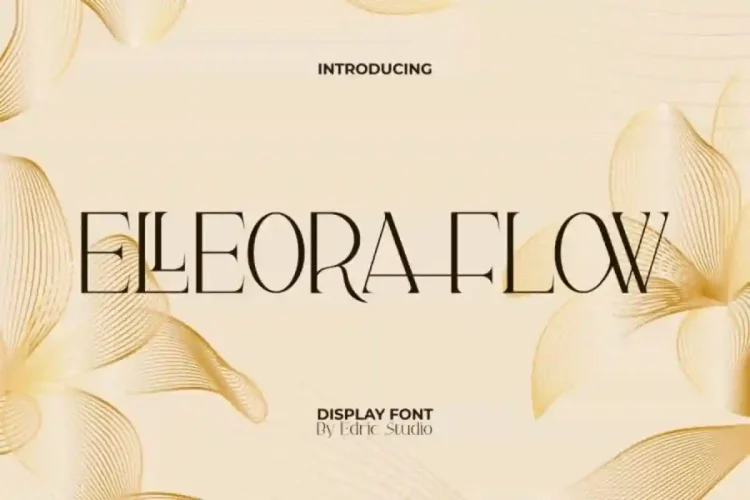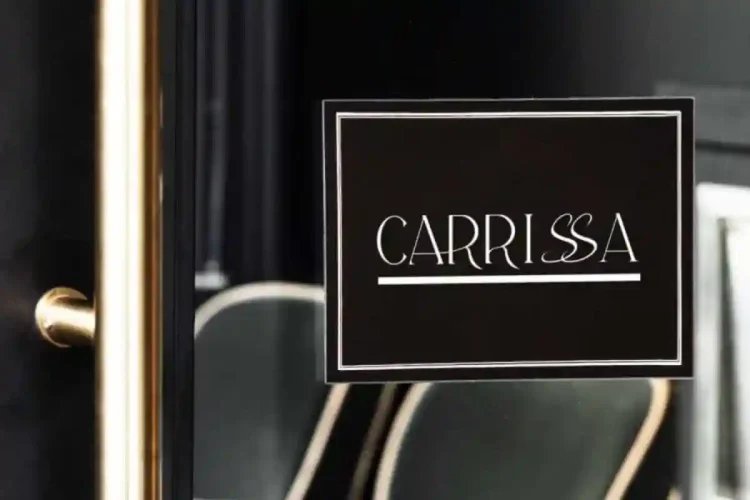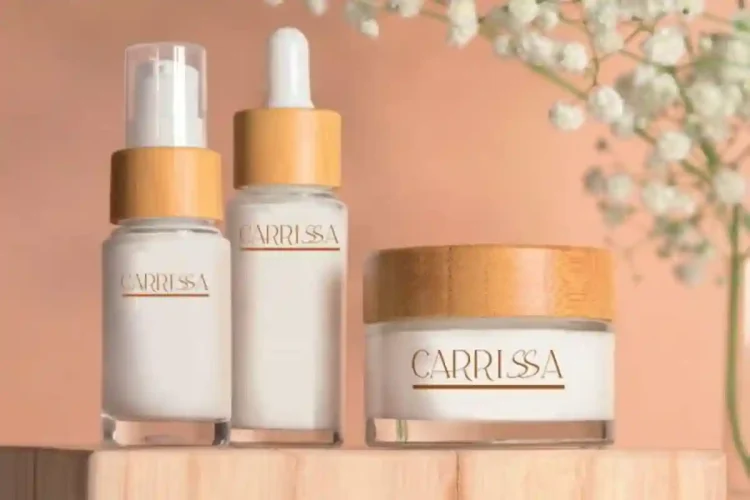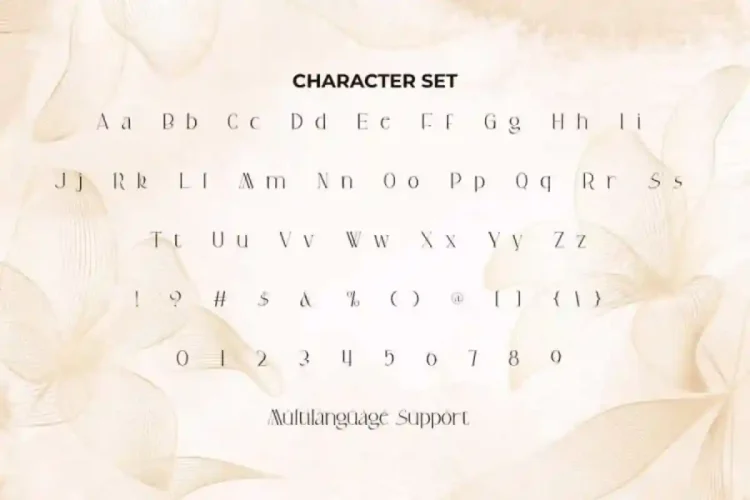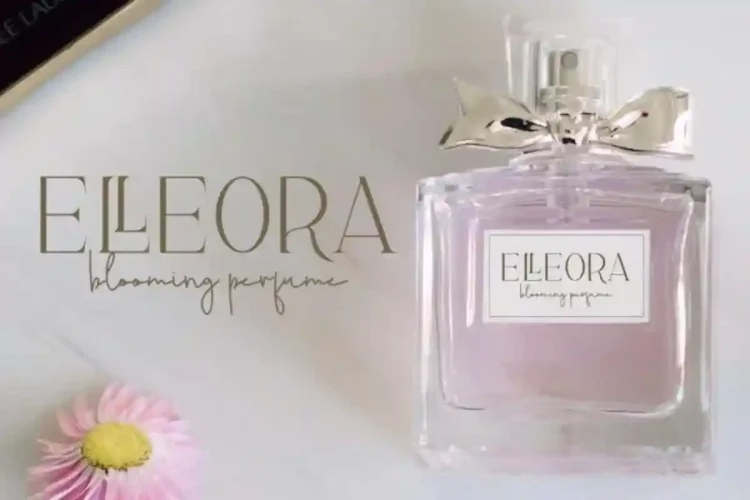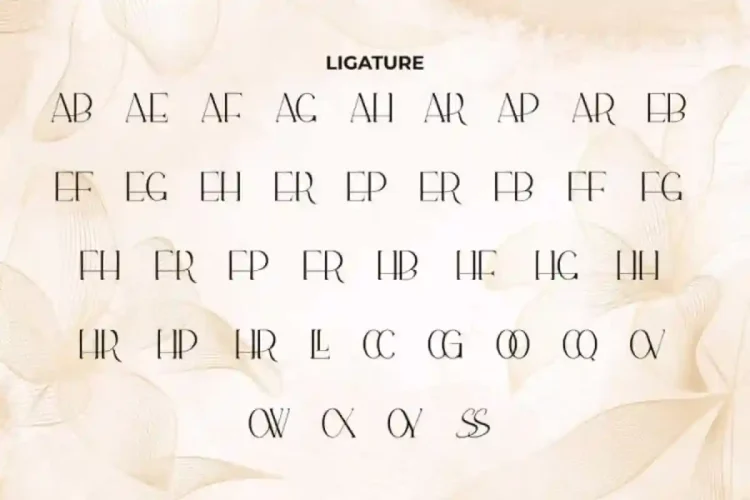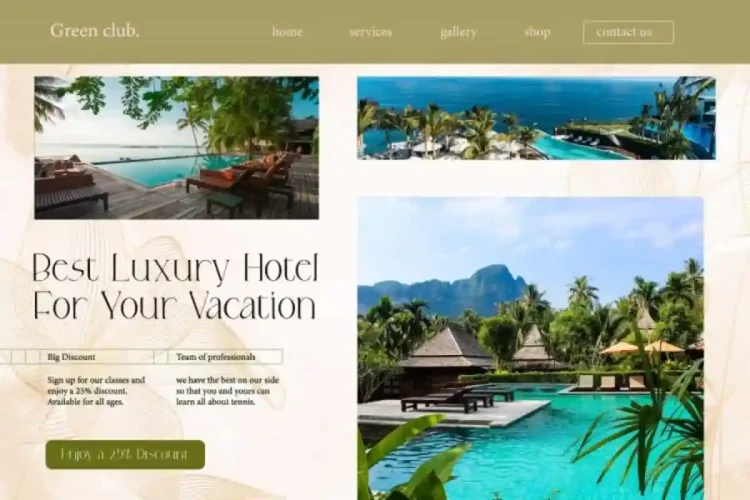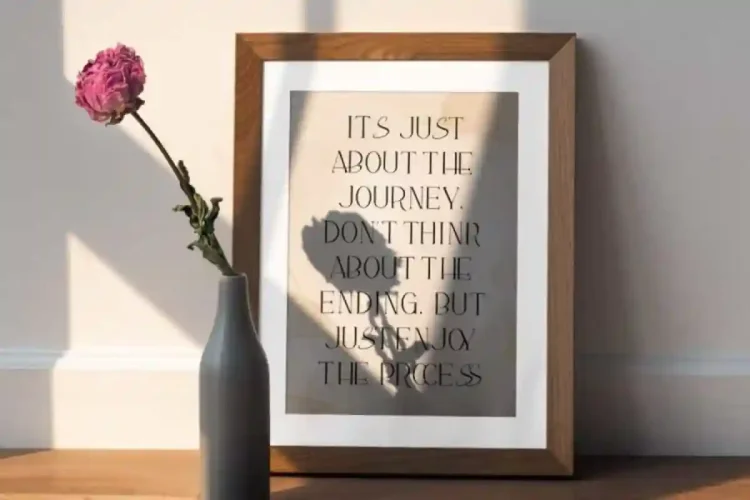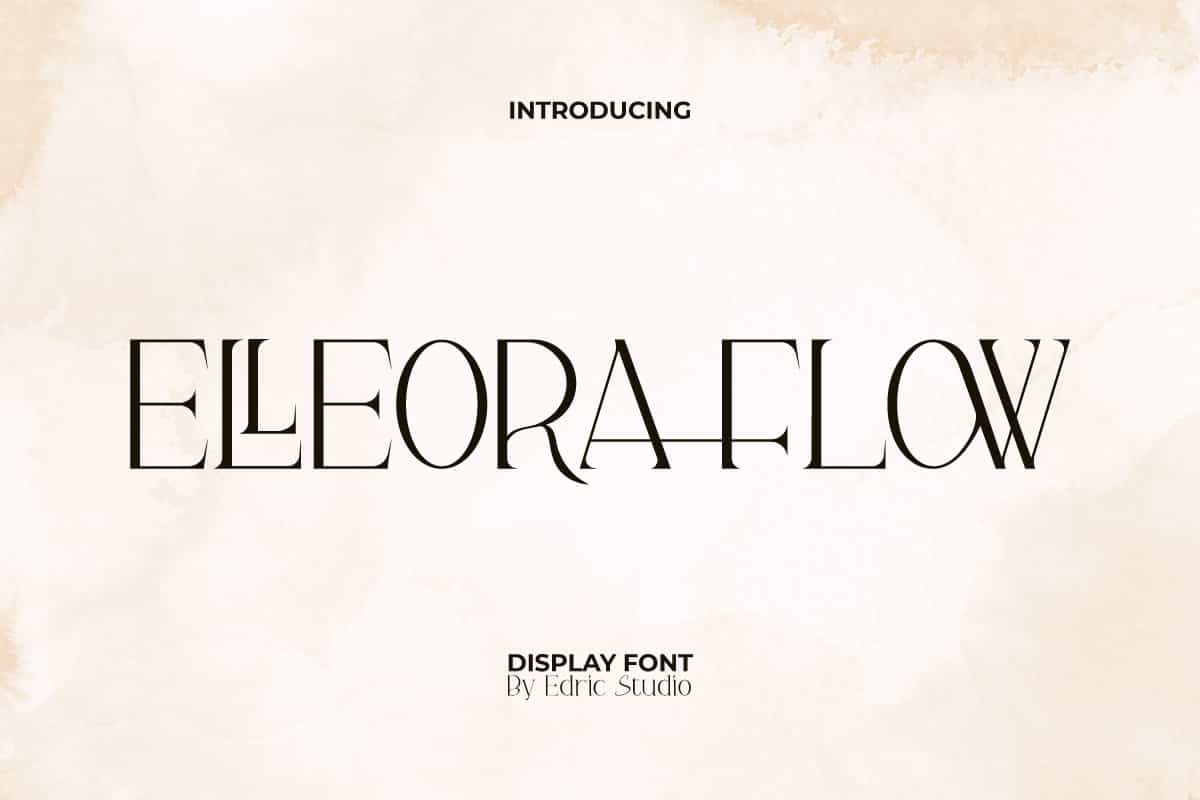
Elleora Flow Display Font is an elegant sleek and modern serif display font. Sleek and modern serif display typeface that radiates elegance and sophistication.
Elleora Flow Display Font comes with full set of Uppercase and Lowercase Basic Characters, Number, a large range of Punctuation, Symbol, and Ligature. It has luxury characters set, perfectly managed with well spaced and kerning. Elleora Flow Display Font will be able to complement for any design (with extended license) including: brand image, cover, custom design, invitation, label, merchandise, packaging design, poster, quote, screen print, signage, stationery, sticker, title, website page, etc.
Elleora Flow Font is a playful typeface with unique decoration in each character. Ready to use both on Windows machine or Mac with simple installations. It’s tested to work well in the Adobe Apps (Illustrator, Adobe InDesign, Adobe Photoshop) even work on Microsoft Word. PUA Encode Characters means you can access all characters easily – Fully accessible without additional design software.